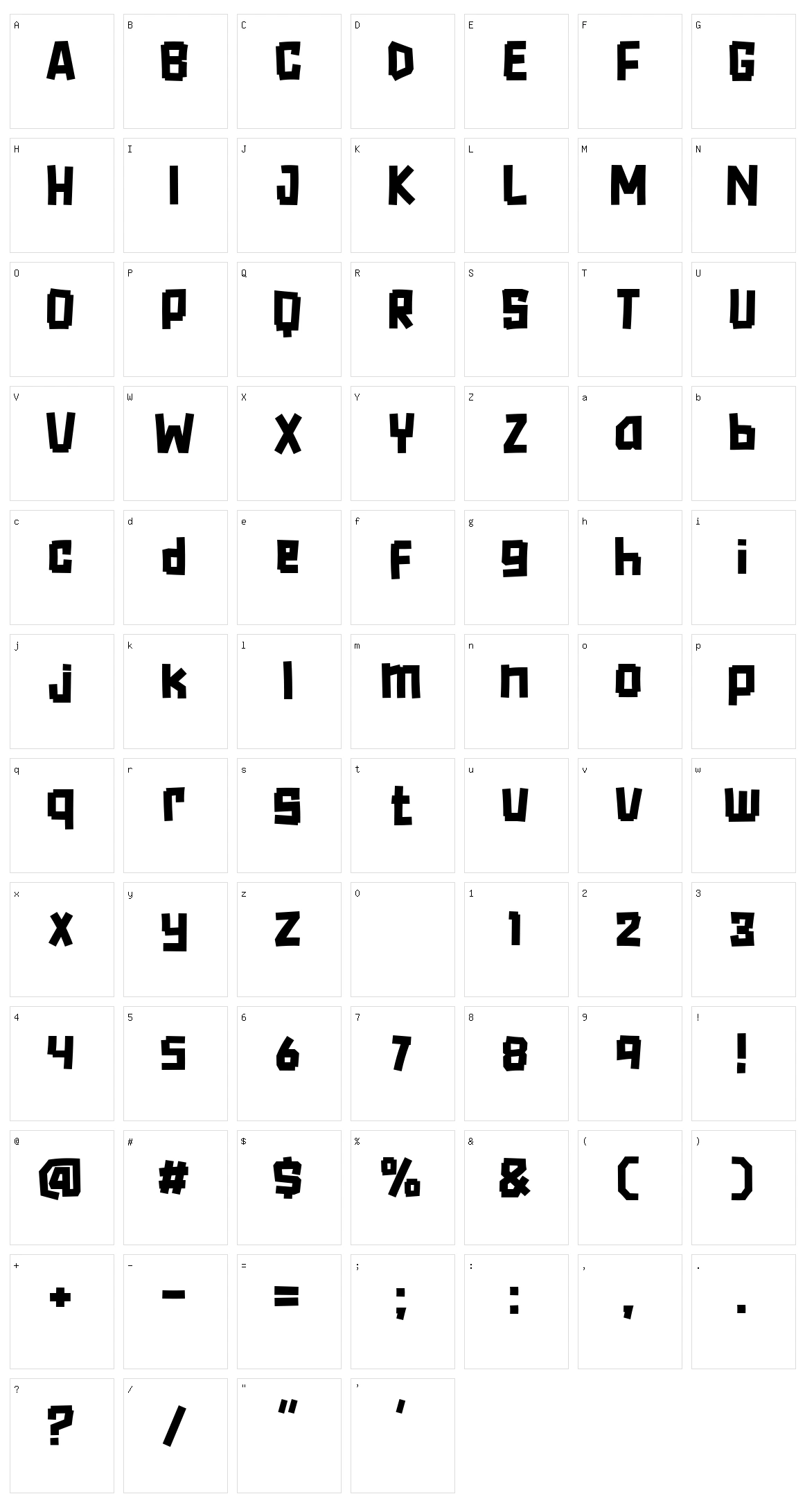
The free font Low Batt is carefully designed by Khurasan, showcasing a thoughtful balance of creativity and usability and falls under the Cartoon font style. When you download the ZIP file, it contains only 249.69 KB of font files, making it lightweight and quick to download. Please review the license details below to understand permitted usage and distribution rights. If license information is not available, we recommend using this font for personal projects only or contacting the author directly for commercial usage permissions.